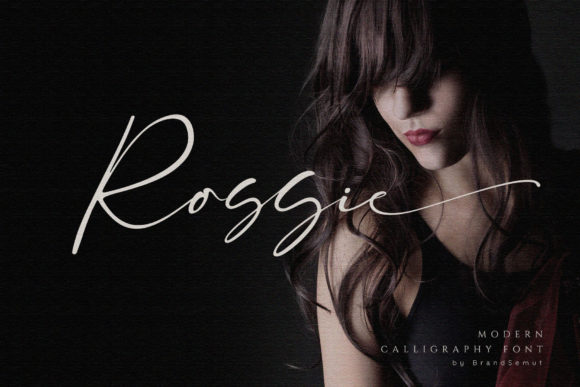
With Rossie Font, a modern calligraphy script, your words will dance across the page. Crafted by the skilled designers at BrandSemut, this font captures the essence of timeless elegance. Its enchanting swashes and ligatures lend an air of sophistication to every design, making it the perfect choice for those seeking a touch of artistry.
Immerse yourself in the world of Rossie, where creativity flows effortlessly. Let its graceful curves and expressive lines ignite your imagination. Create stunning wedding invitations that will be cherished for a lifetime, elevate your stationary art with a touch of flair, and captivate your audience with eye-catching social media posts. Whether you're crafting heartfelt greeting cards or designing captivating blog content, Rossie empowers you to express yourself with style and grace.
Indulge in the allure of Rossie Font, where beauty and functionality intertwine. Its versatility knows no bounds, making it a must-have for any designer's toolkit. Let your words take center stage, adorned with the timeless charm of Rossie. Embrace the art of typography and unlock a world of creative possibilities with this extraordinary font.